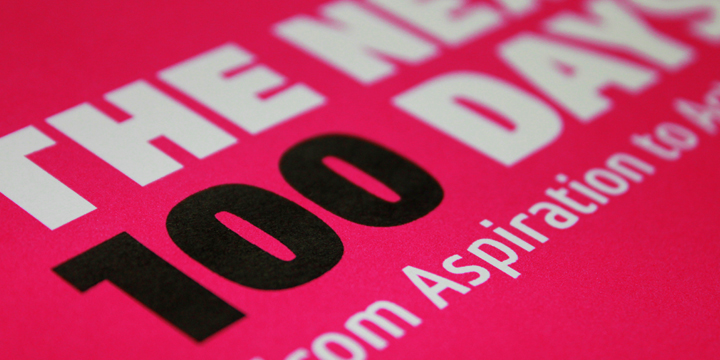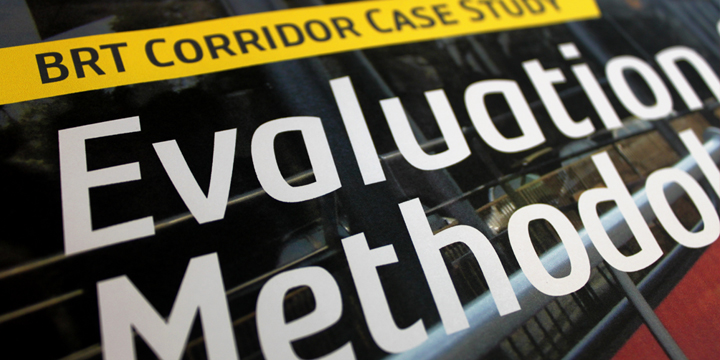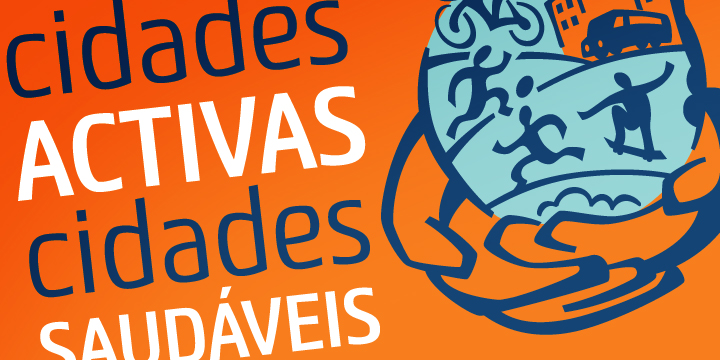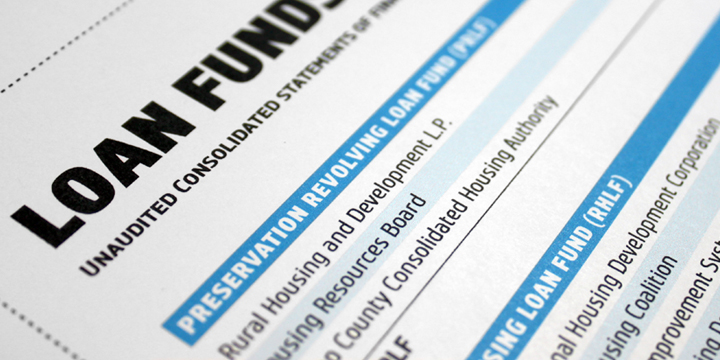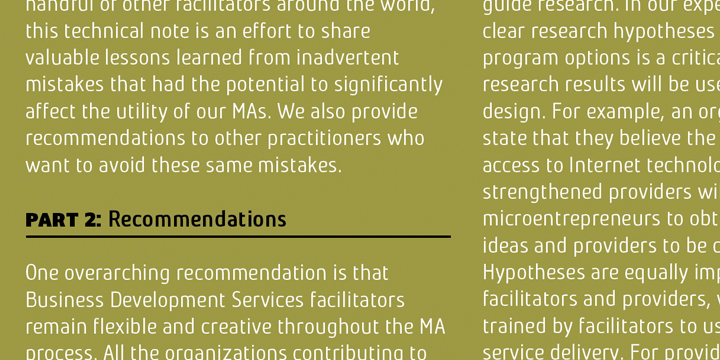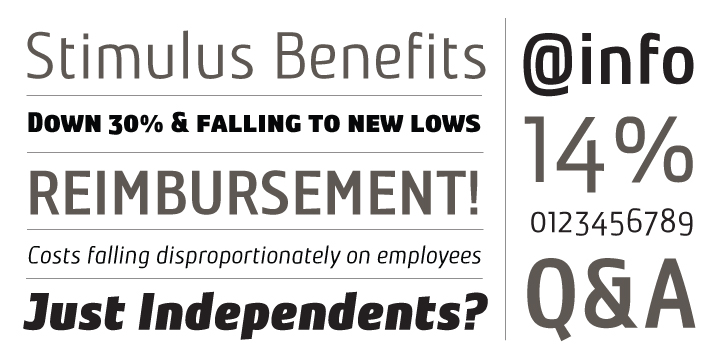
Level Font Family
Level is a spurless sans serif family that takes a more calligraphic approach to the popular square sans. The subtle swelling and shrinking in the strokes of the curves and terminals contrast with the slight squared corners for a sans family that straddles the line between machine-made and human-crafted.
Generous spacing and simple, narrow construction make for airy text that still conserves real estate on the page. Three weights include italics and small-caps + old-style numbers.